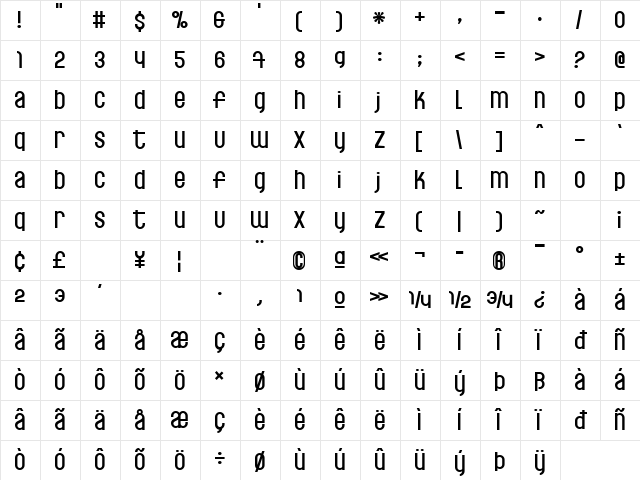
Fishsoup Regular
Design Context for Fishsoup
Fishsoup is a composed and adaptable typeface that performs quietly and consistently across a wide range of design contexts.